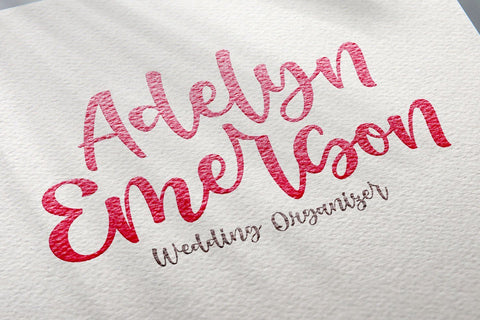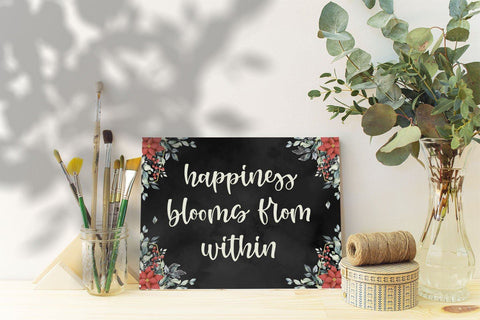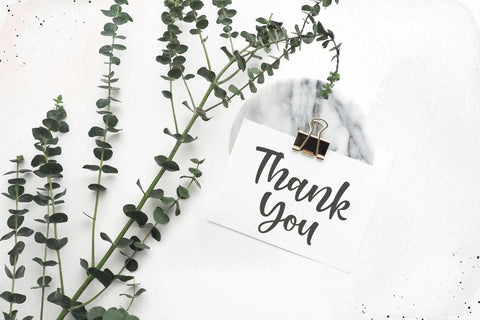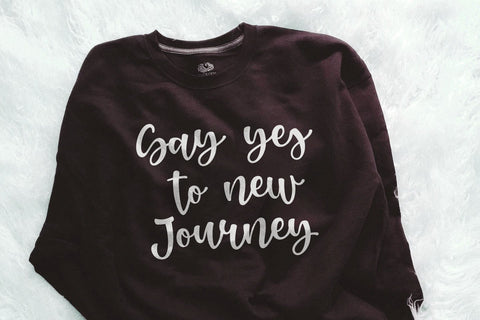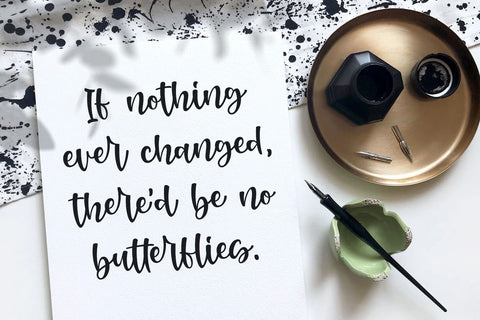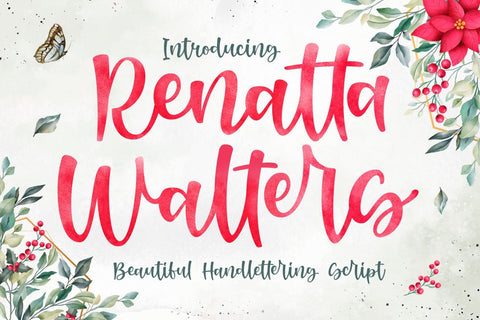
Renatta Walters - Modern Script Font
Renatta Walters is an elegant and sweet script with a romantic spark. Use it to add that special enchanting touch to any design idea you can think of!
Renatta Walters would be perfect for logos & branding, photography, watermark, social media posts, advertisements, invitation, product designs, label, stationery, wedding designs, product packaging, special events or anything that need handwriting taste.